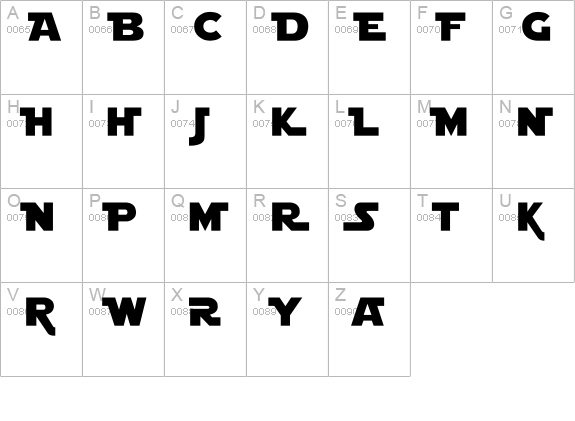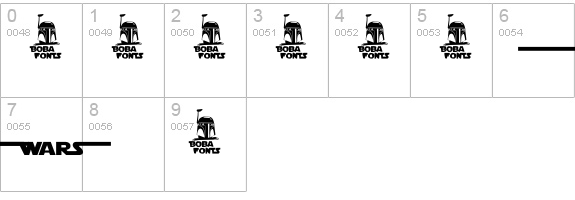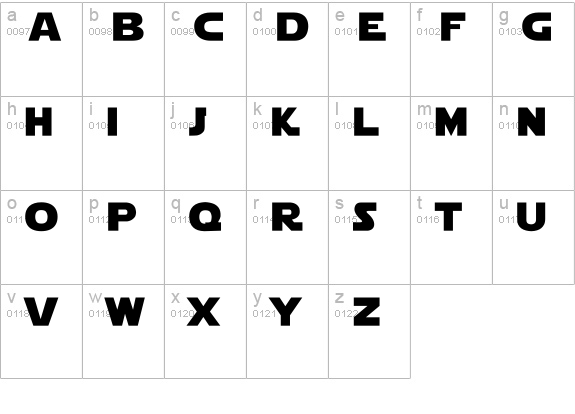
Star Jedi Logo DoubleLine2 Font Details
Star Jedi Logo DoubleLine2 is a captivating and mesmerizing font that embodies the spirit of adventure, imagination, and the epic tales of the galaxy. With its bold and futuristic design, this font is the perfect choice for all your sci-fi, fantasy, and Star Wars-inspired projects. This font features a unique double-lined style, giving your text a stunning and dynamic appearance. Each character is intricately crafted, with sharp edges and precise lines that evoke a sense of power and authority. Whether you're creating a logo, poster, or digital artwork, Star Jedi Logo DoubleLine2 will surely make a bold statement. The best part? This incredible font is absolutely free! That's right, you can download Star Jedi Logo DoubleLine2 at FontsMarket.com without spending a penny. It's the perfect opportunity to add a touch of intergalactic flair to your designs without breaking the bank. So go ahead and unleash your creativity with Star Jedi Logo DoubleLine2. Let your imagination soar to new heights as you explore the vast possibilities that this font has to offer. Whether you're a Star Wars fanatic, a graphic designer, or simply someone looking to add a touch of sci-fi magic to your projects, this font is a must-have in your arsenal. Download Star Jedi Logo DoubleLine2 now at FontsMarket.com and embark on an unforgettable journey through the stars. Don't miss out on this incredible opportunity to bring your visions to life with a font that is both captivating and free. May the force be with you as you create stunning designs that will leave a lasting impression.